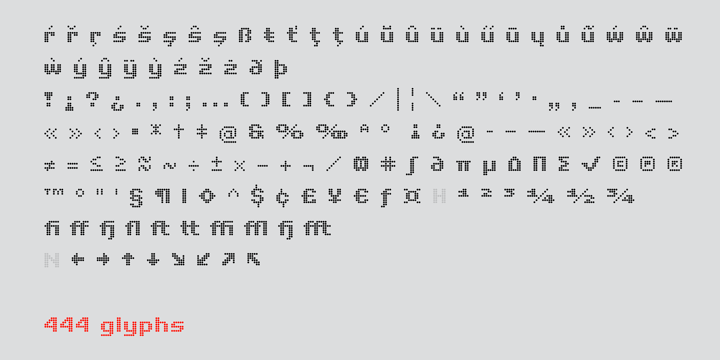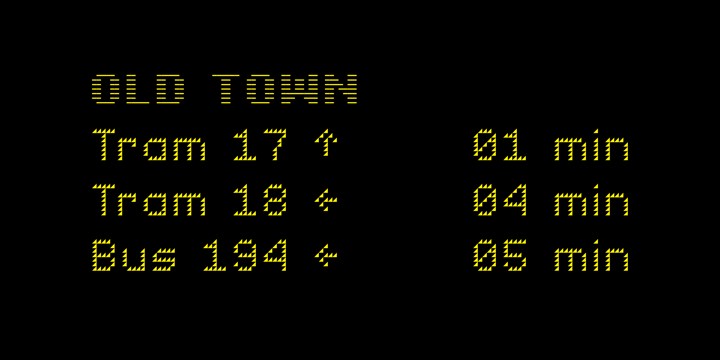
Pixel Grid
The Pixel Grid Font Family was designed by Martin Činčár and published by Caron twice. Pixel Grid contains 220 styles and family package options. More about this family
Pixel Grid is a font that lets us know that we have entered the digital age. We know about grid systems from the very first computers and electronic LED boards. Pixel Grid offers three types of grid resolution as well as many incarnations of individual segments. It is an electronic game: characters can be animated, overlapped, and played with in different ways. If you need a font that is strictly technical in nature, you can use
tried-and-true square and round points. You can save ink by using them on receipts, for example, so the font can be used sustainably. Pixel Grid is suitable for engraving, or it can be used as a stencil. This complete font family aims to gain an extensive selection covering the early digital font style, facilitating the use of the style in professional applications today.